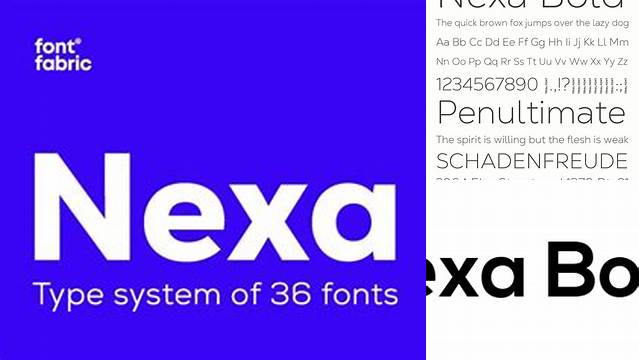
Hey guys! Looking for a bold and stylish font to make your designs pop? You're in luck! Today, we're diving deep into the world of the Nexa Extra Bold font family, and guess what? You can snag it with a free download! This font is a real workhorse, perfect for everything from eye-catching headlines to sleek body text. We'll explore where to find it, how to use it, and why it's a fantastic choice for your creative projects. So, buckle up and get ready to unleash the power of Nexa Extra Bold!
H2: Unveiling the Allure of Nexa Extra Bold: A Font for the Ages
Nexa Extra Bold isn't just another font; it's a statement. It's the kind of typeface that grabs your attention and doesn't let go. Think about it: when you need something to stand out, what do you do? You make it bold! Nexa Extra Bold takes that concept and cranks it up to eleven. Its thick strokes and imposing presence make it ideal for headlines, titles, and any design element that demands immediate notice. But it's not just about brute force; there's a certain elegance to Nexa Extra Bold, a modern sensibility that makes it versatile enough for a wide range of applications. From website banners to print advertisements, this font can handle it all with style. The beauty of Nexa Extra Bold lies in its clean lines and readability. Even at larger sizes, the characters maintain their clarity, ensuring your message is delivered loud and clear. And with a free download at your fingertips, there's no reason not to give it a try. Experiment with different weights and styles within the Nexa family to find the perfect match for your project. Trust me, once you start using Nexa Extra Bold, you'll wonder how you ever designed without it. Its impact is undeniable, and its versatility is unmatched. So, go ahead, embrace the boldness and let Nexa Extra Bold elevate your designs to the next level. This font family has become a staple in many designers' toolkits, and for good reason. It's reliable, stylish, and, most importantly, effective. Whether you're a seasoned designer or just starting out, Nexa Extra Bold is a must-have.
H3: Why Nexa Extra Bold Stands Out in the Crowd
In a sea of fonts, what makes Nexa Extra Bold special? It's a combination of factors. First, the sheer boldness of the typeface. It's designed to capture attention. Second, its modern aesthetic is clean and contemporary, making it suitable for a wide range of design styles, from minimalist to more elaborate layouts. Third, the font’s legibility is excellent. Even at larger sizes, the bold strokes remain clear and easy to read. Then, there's the versatility. Nexa Extra Bold isn't just for headlines; it can be used in a variety of ways, from short body text to emphasis on key phrases or words. Think about how it can be incorporated into your brand identity – logos, website headers, social media graphics, or even presentations. Moreover, the availability of a free download makes it accessible to everyone, regardless of their budget. It gives you the opportunity to experiment and see how it fits into your design workflow without any financial commitment. Nexa Extra Bold often includes a range of weights and styles within the family, allowing you to create a cohesive design system where you can use it for many applications in different weights without needing to hunt for different font families. Lastly, it’s simply a beautiful font. It's well-crafted, with a sense of sophistication that elevates any project. It's a statement font that conveys confidence and clarity, making it a fantastic choice for anyone who wants to make a strong impression. It's the kind of font that designers love to use because it reliably delivers impactful results, and a free download makes it a no-brainer.